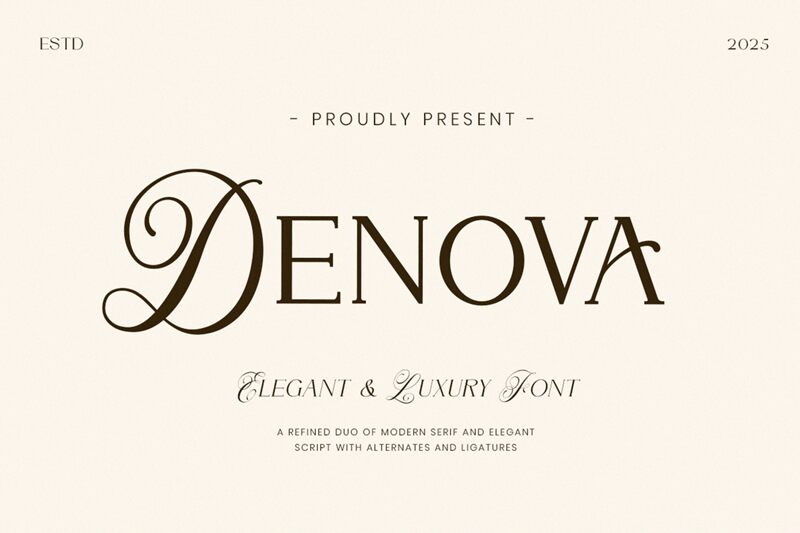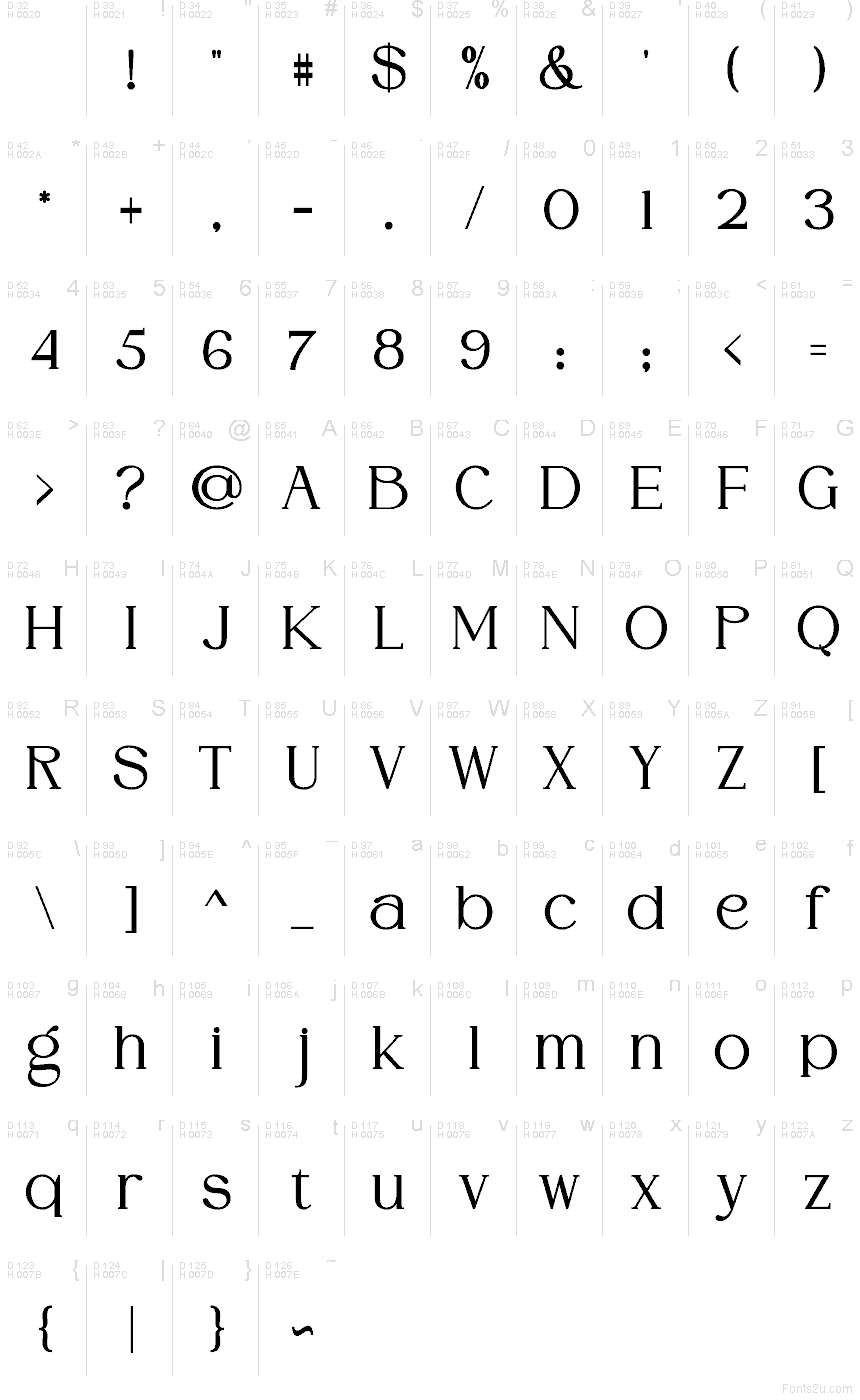
DENOVA Bold
DENOVA Bold font by Toni Studio from the DENOVA family is a free serif font, and its charm is all in that clean, editorial poise. The strokes feel crisp and confident, with sharp, chiseled serifs and roomy spacing that lets words breathe. It reads like a fresh masthead—polished, calm, and quietly authoritative.
Using DENOVA Bold, you’ll get strong results on magazine titles, book covers, brand wordmarks, luxury packaging, posters, event invitations, and landing-page heroes. This free font also holds up nicely for pull quotes and short, punchy headlines where you want gravity without fuss. Pair it with a simple geometric sans for body copy, and let the bold weight do the talking at larger sizes.